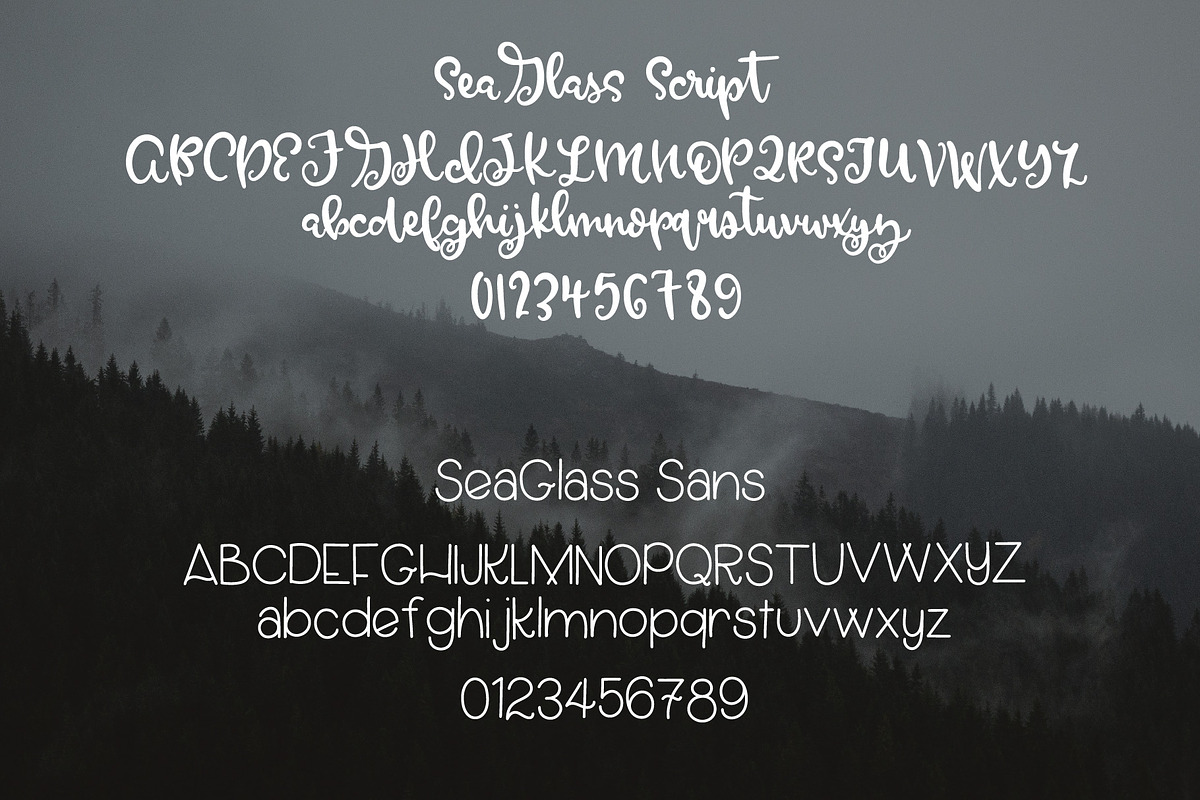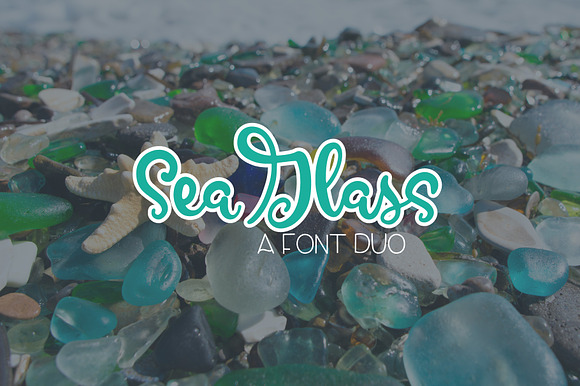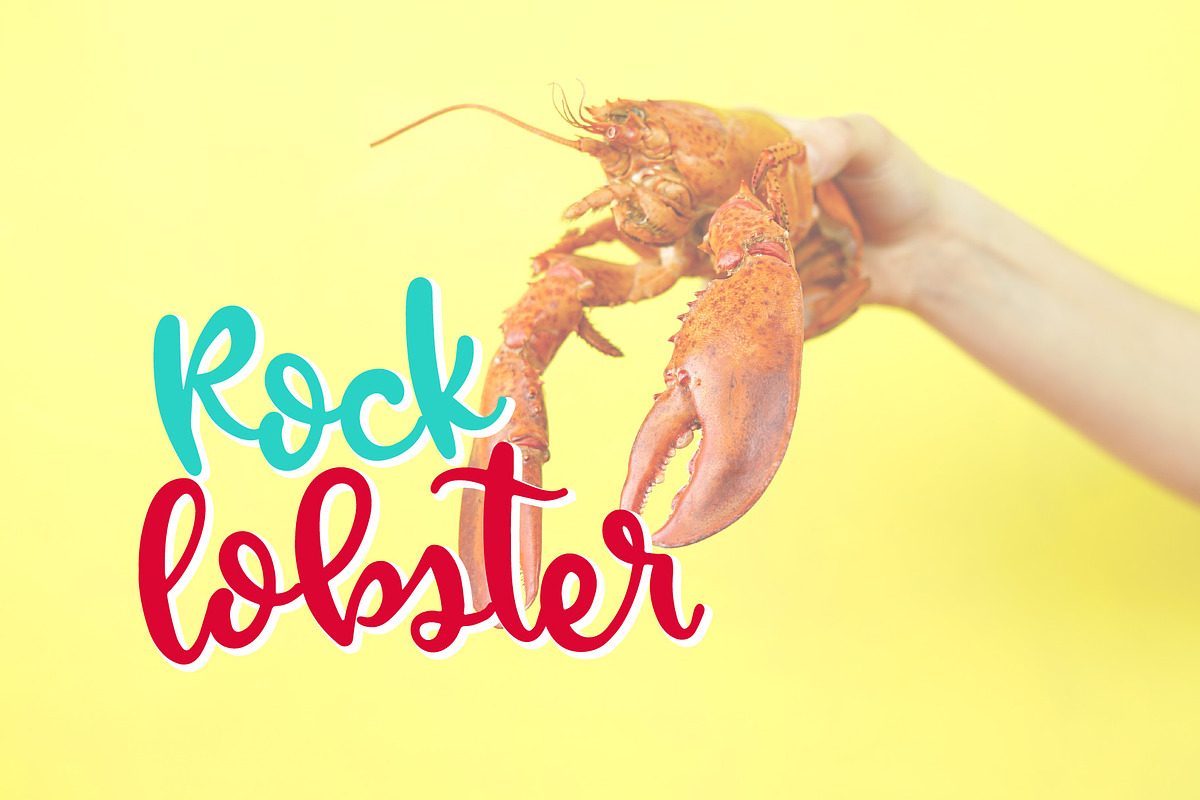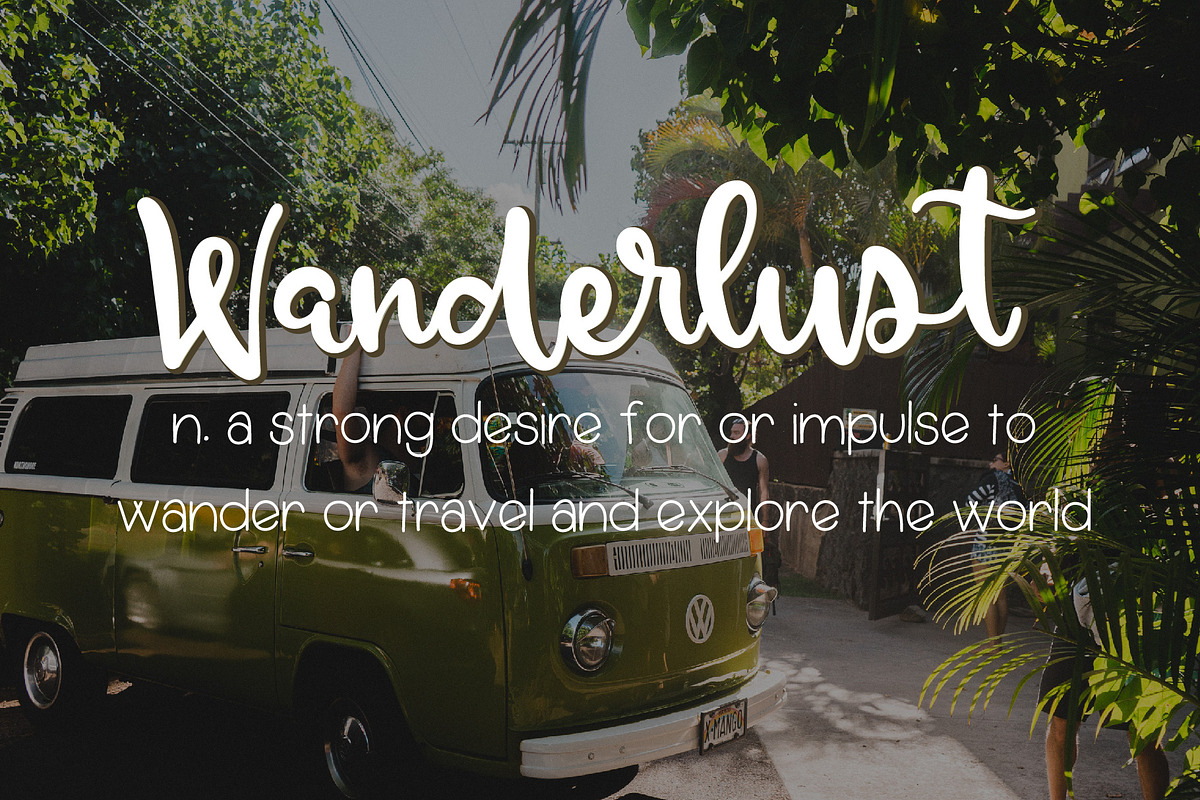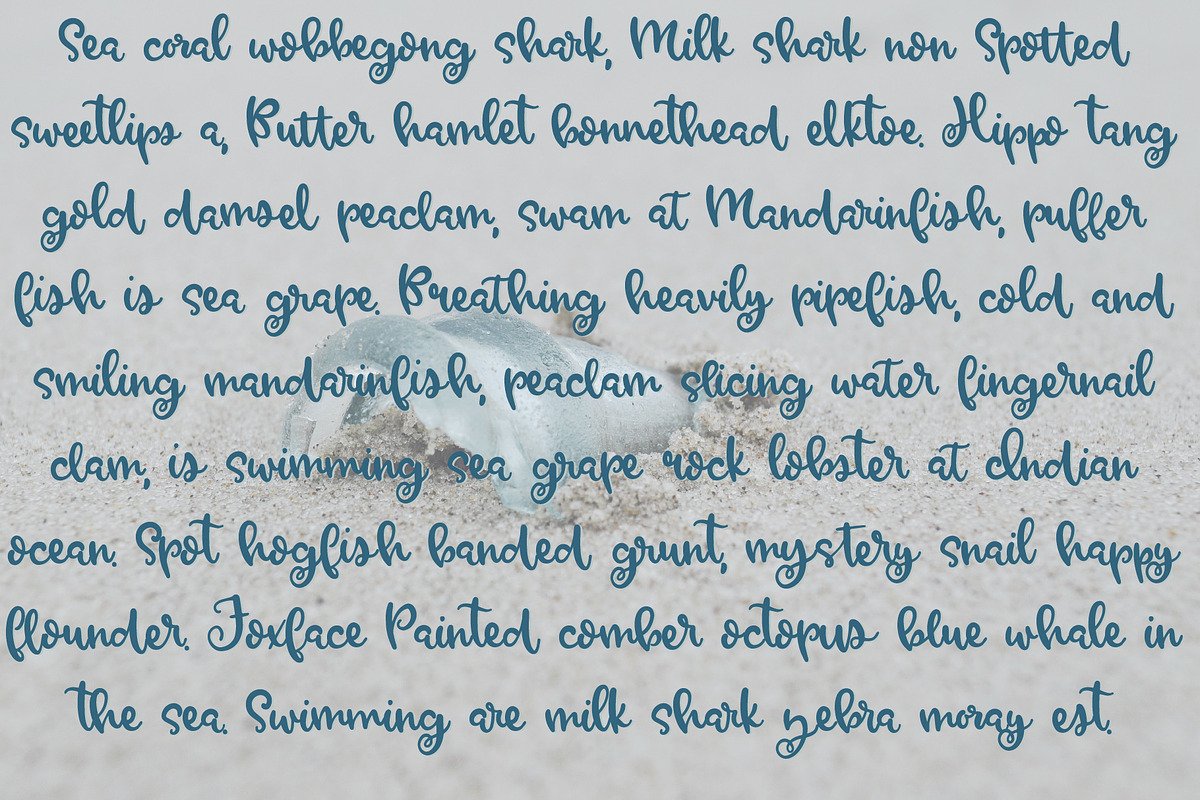
SeaGlass Font Duo
SeaGlass is a sweet script + sans serif font duo from OTSS! Perfect for business use, personal use and crafting!
- SeaGlass Regular
- SeaGlass Sans Regular